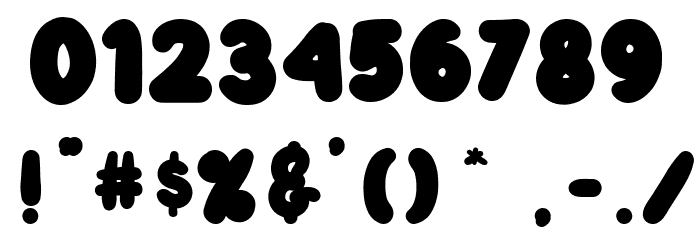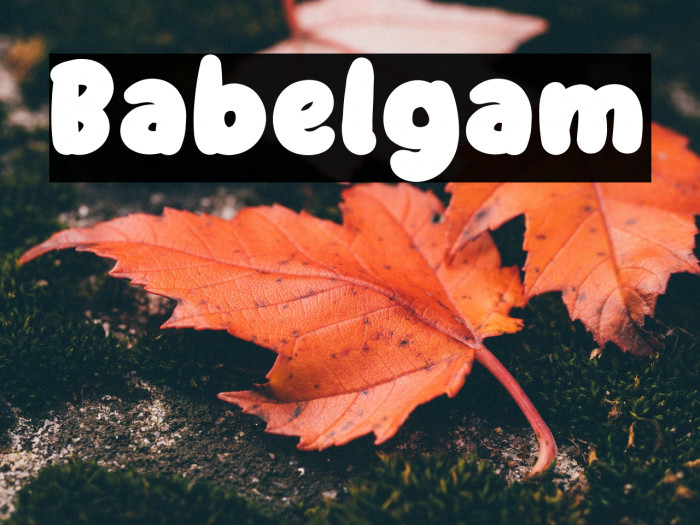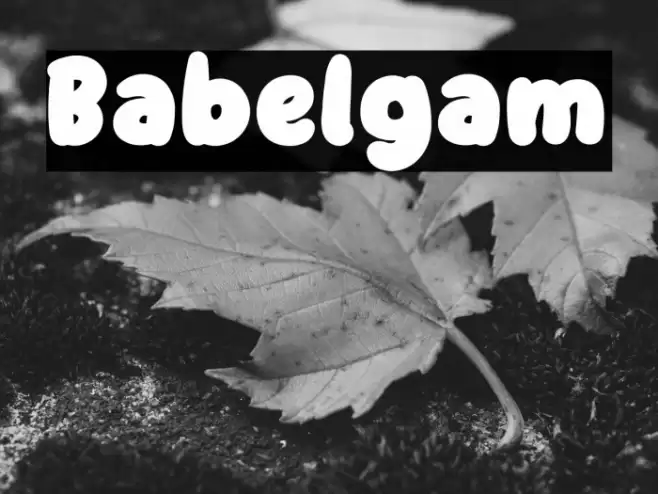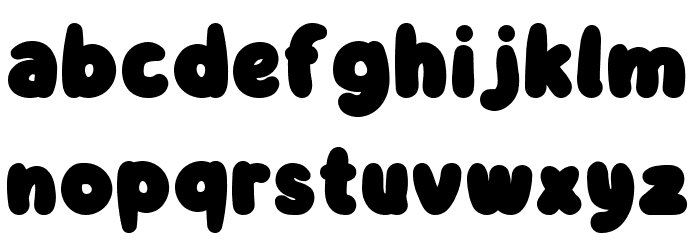
Babelgam Font
| 全体的なスタイル | Playful, Whimsical |
| おすすめプロジェクト | Ideal for children's books, playful branding, party invitations, and any project needing a fun, whimsical touch. |